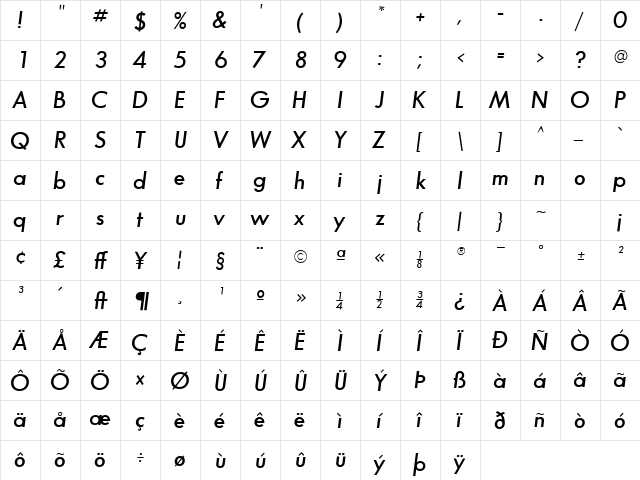
Bougan SSi Semi Bold Italic
Design Context for Bougan SSi Typeface
Bougan SSi is a composed and adaptable typeface that performs quietly and consistently across a wide range of design contexts. The slanted form adds forward momentum and visual energy. The heavy weight commands attention and anchors typographic hierarchies.
Pro Tip: Use Bougan SSi for emphasis, pull quotes, and subheadings where its slanted energy can add rhythm to the layout.